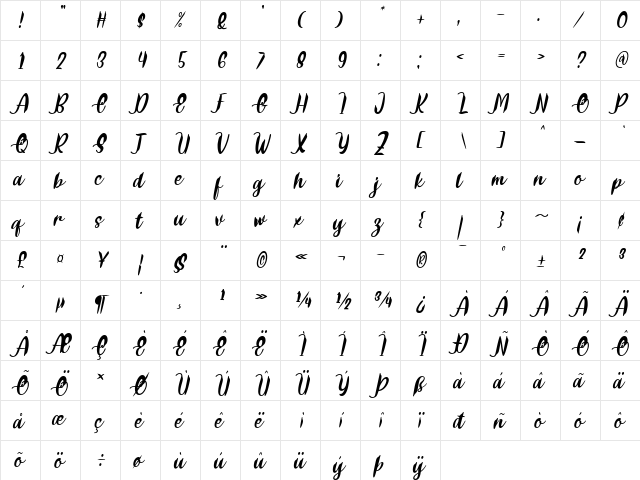
Delumba Italic
| Foundry | 7NTypes |
| Designer | Rifki Syahrul Febrianoka; Situjuh Nazara |
Design Context for Delumba Typeface
Delumba is a composed and adaptable typeface that performs quietly and consistently across a wide range of design contexts. The dynamic lean of this cut emphasises speed and emphasis in any layout.
Pro Tip: Use Delumba for emphasis, pull quotes, and subheadings where its slanted energy can add rhythm to the layout.